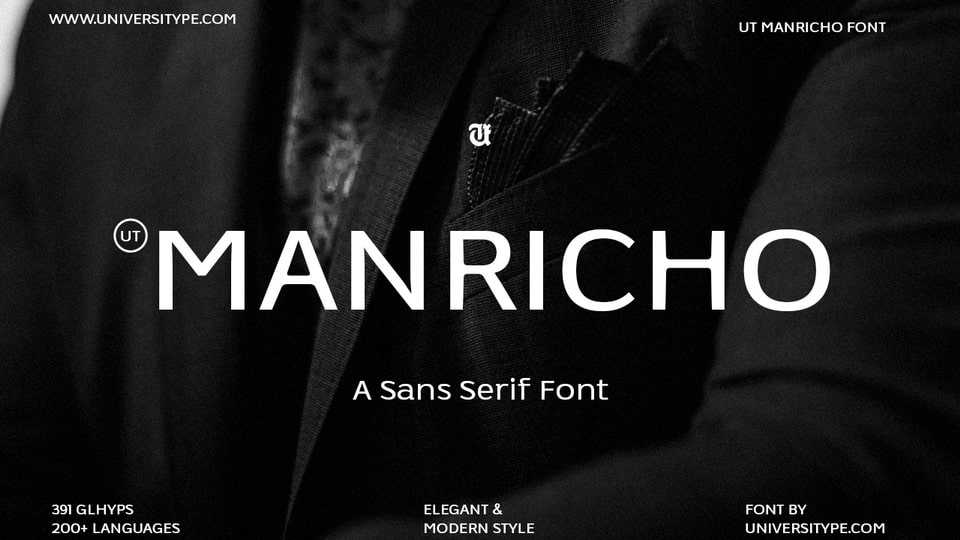
Download UT Manricho font, a typeface crafted to embody sophistication, elegance, and modern refinement, drawing inspiration from the sleek contours of luxury perfume bottles.
Designer: Universitype Foundry